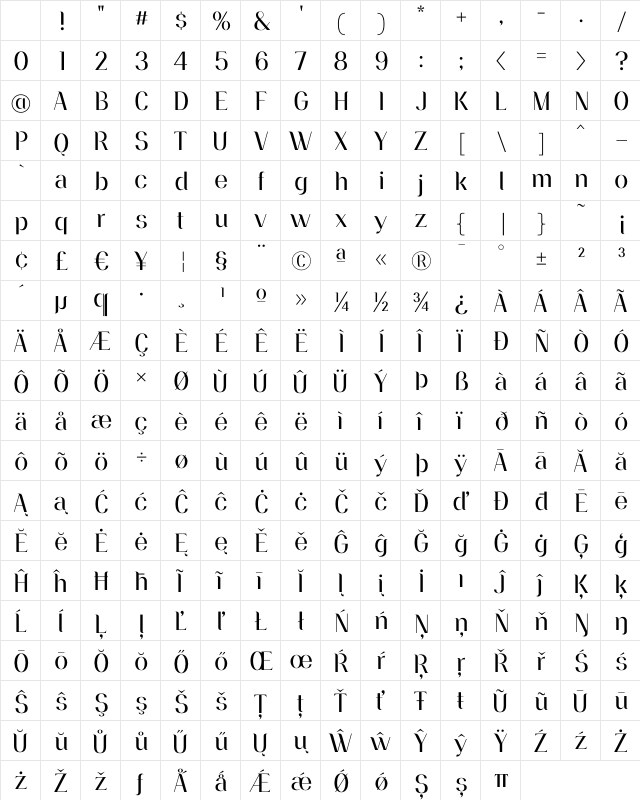
Vandermark is a composed and adaptable typeface that performs quietly and consistently across a wide range of design contexts.
Pro Tip: Use Vandermark in both headline and body roles to test its range before committing to a single application.